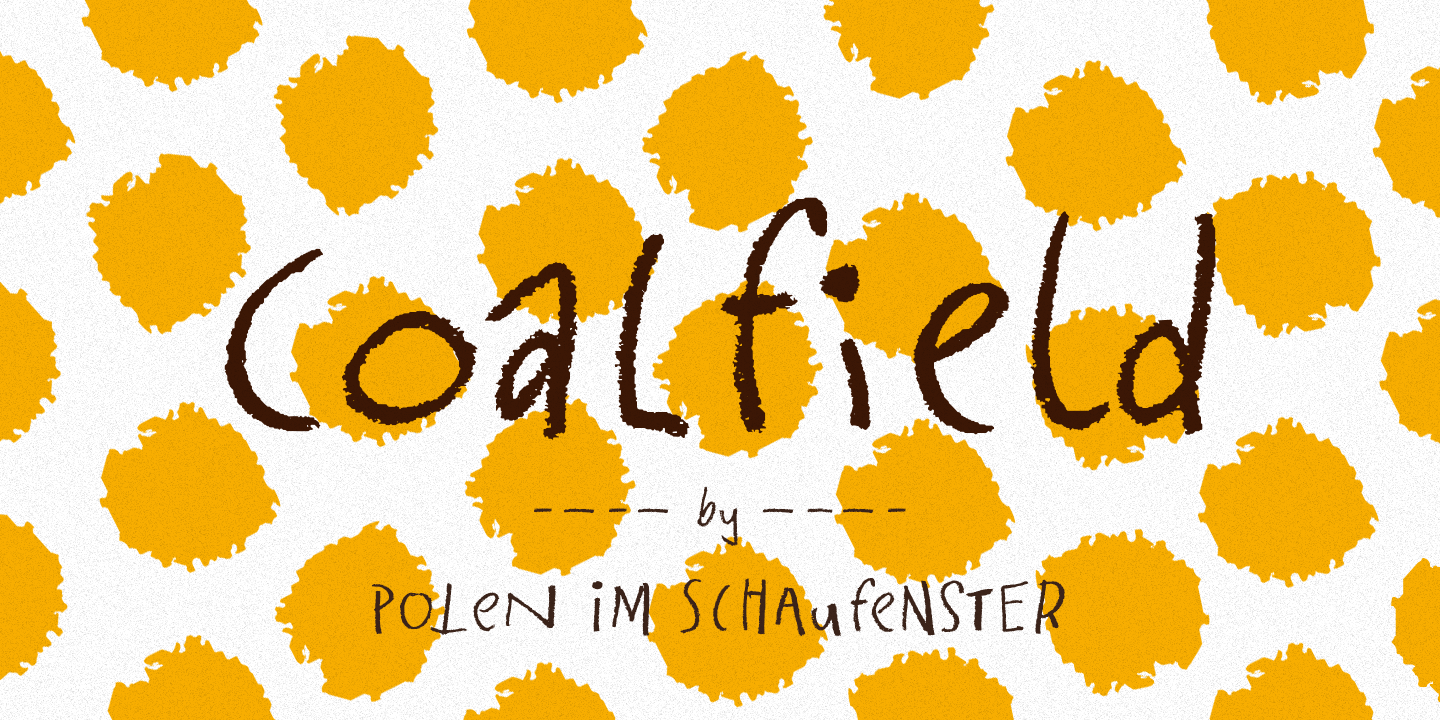
PiS Coalfield Font is perfect for industrial branding projects, mining company logos, heavy machinery signage, construction materials, steel industry applications, underground mining communications, industrial safety labels, and rugged equipment documentation.
What makes PiS Coalfield Font exciting is its raw industrial strength that captures the gritty authenticity of coal mining heritage through weathered, work-hardened letterforms. The robust character design and underground aesthetics evoke the power of heavy industry while maintaining contemporary functionality for modern industrial applications.
PiS Coalfield Font family includes regular, bold, distressed, stencil, and heavy versions, plus industrial symbols, mining ornaments, and machinery decorative elements that enhance the rugged typography experience with authentic industrial appeal.
Forge ahead with industrial strength using PiS Coalfield Font Free Download, the ultimate choice for brands built on hard work and industrial heritage. This powerful typeface embodies the spirit of coal mining through letterforms that seem forged in the depths of underground mines and strengthened by generations of industrial labor. The expertly weathered characters feature authentic industrial details that convey reliability and strength while ensuring maximum visibility across all heavy-duty applications, from detailed safety documentation to massive industrial installations. Mining companies and industrial manufacturers consistently select this font for projects requiring genuine connection to working-class values combined with uncompromising durability standards. Its comprehensive collection of industrial elements provides unlimited possibilities for creating memorable communications that celebrate the backbone of modern civilization with respect and authenticity. Experience the unbreakable power of industrial typography that transforms standard corporate materials into declarations of strength, establishing your brand as a pillar of industrial excellence in today's technology-driven world that still depends on heavy industry.